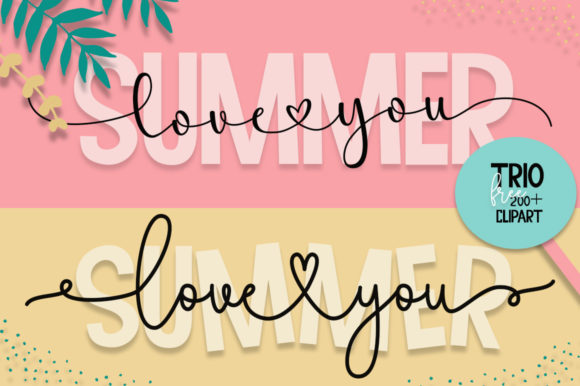
Introducing Summer Love You Font, the ultimate choice for adding a touch of cuteness and playfulness to your designs! This delightful duo font, consisting of a display and script style, is designed to capture hearts and bring joy to any project.
Embrace the versatility of Summer Love You Font as it effortlessly transforms ordinary designs into extraordinary works of art. With its wide range of application, this font is perfect for various projects, from personal branding to invitations, baby shower decorations to social media graphics, and so much more. Let your creativity run wild and watch as Summer Love You Font takes your designs to new heights.
Crafted with meticulous attention to detail, Summer Love You Font is PUA encoded, granting you easy access to a vast collection of glyphs and swashes. Whether you're adding a whimsical touch to a baby girl's name, creating a logo for a children's brand, or designing adorable merchandise, this font has got you covered.
Infuse your designs with emotion, tenderness, and a sense of wonder with Summer Love You Font. Its charming curves and playful letterforms will captivate your audience and evoke a warm and fuzzy feeling. Watch as hearts melt and smiles bloom when they lay their eyes on your creations.
Created by the talented Fillo Graphic, Summer Love You Font embodies creativity, passion, and a deep love for design. With its eye-catching aesthetic and captivating charm, this font will not only enhance your projects but also leave a lasting impression on your audience.